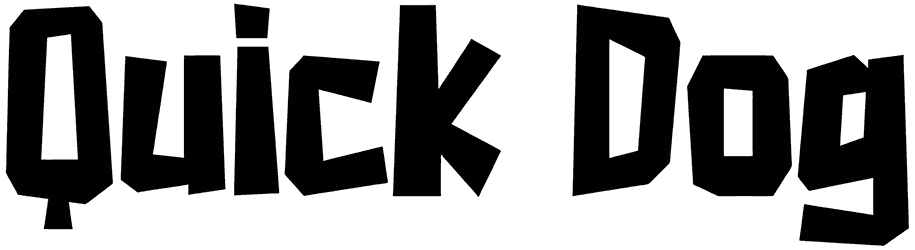
Quick Dog Font
Cartoon fonts are one of those categories you’ll always need so don’t wait a second longer and add Quick Dog to your toolkit. Let’s just say they come in handy everywhere so the more playful fonts you own, the better.
Every time a kid’s project comes along, you’ll know you can count on the fun letters of Quick Dog to get the job done. You can just throw them on your summer posters or game logos and it’ll be awesome.